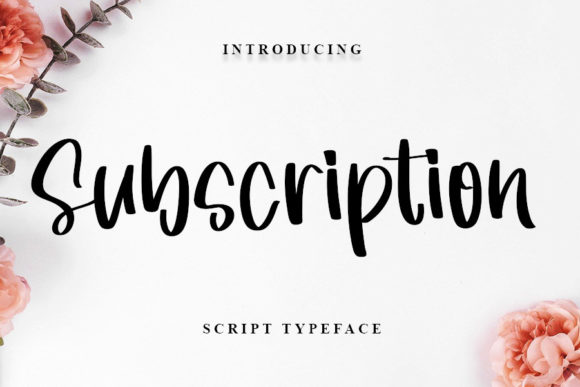
Indulge in the allure of Subscription, a script font that captivates with its exquisite grace. Crafted to perfection by K_IN Studio, this masterpiece embodies the essence of sophistication and elegance.
Every stroke of Subscription exudes a timeless charm, evoking the allure of handwritten letters. Lose yourself in its symphony of stylish alternates and ligatures, designed to elevate your projects to new heights.
Unleash your creativity with Subscription and let its beauty ignite your imagination. Whether you're crafting invitations, branding designs, or personalizing your digital creations, Subscription will infuse your work with a touch of undeniable elegance. Its versatility knows no bounds, making it the perfect companion for any discerning designer.
Experience the transformative power of Subscription and elevate your written creations to the realm of artistry. Its beauty will captivate your audience, leaving an unforgettable impression that lingers long after the final stroke.